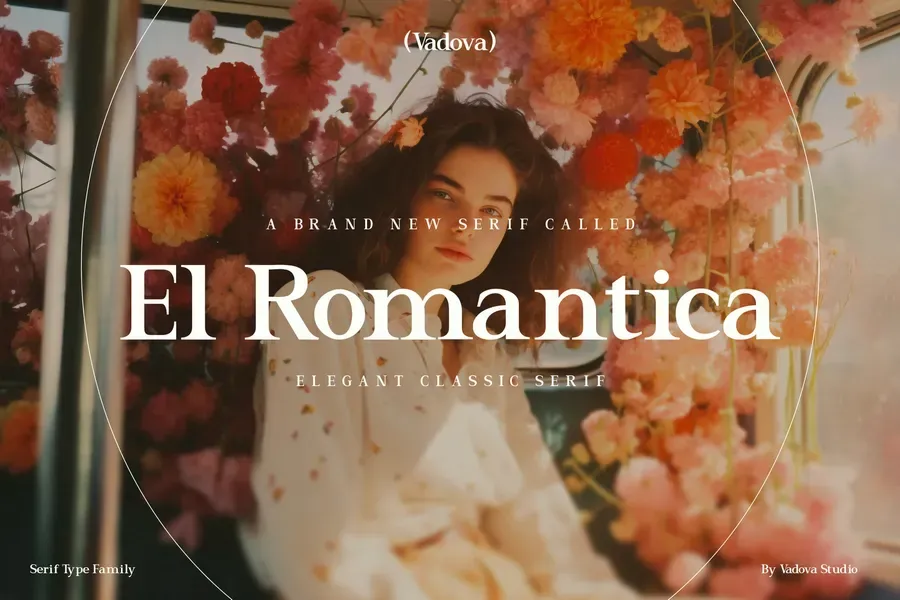
El Romantica is an elegant classic serif font designed to evoke timeless beauty and sophistication. With its graceful curves, high-contrast strokes, and artistic letterforms, it’s ideal for luxury branding, editorial layouts, invitations, and romantic packaging. Whether you’re crafting a refined logo or an aesthetic poster, El Romantica offers a delicate balance of tradition and creativity—perfect for stylish and expressive visual identities.
Suitable For: Wedding stationery, luxury branding, editorial spreads, artistic posters, aesthetic quotes, fashion lookbooks, logo design, classic packaging, invitations, lifestyle branding, boutique identity, book titles, elegant signage, high-end design, romantic visuals, cultural projects, refined ads, graceful headers, beauty products, brand storytelling